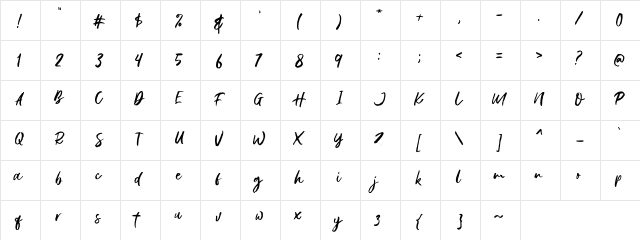
Gustolle Regular
Design Context for Gustolle Typeface
Gustolle is a composed and adaptable typeface that performs quietly and consistently across a wide range of design contexts.